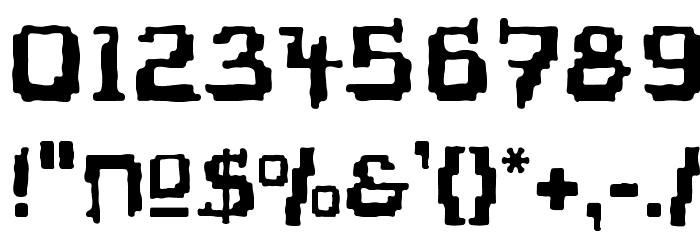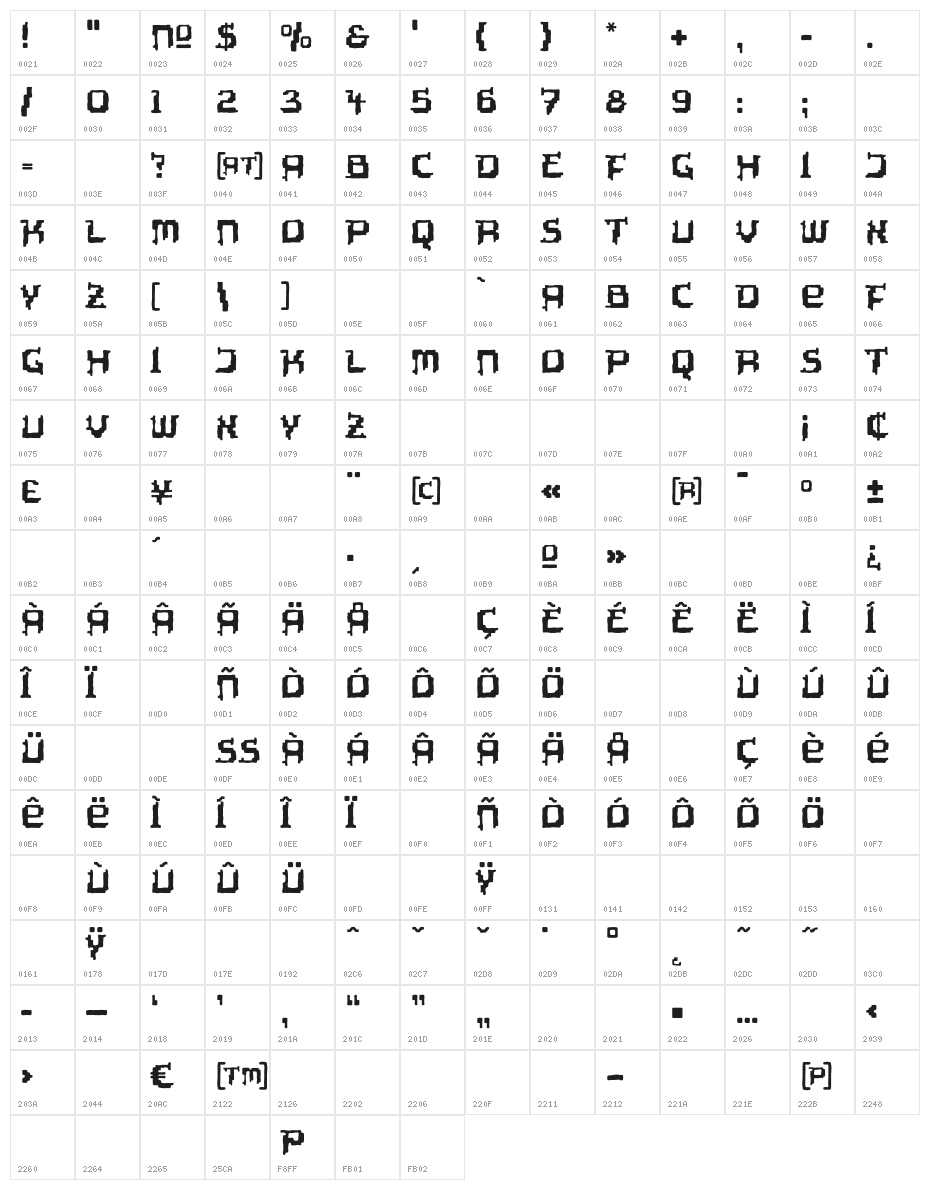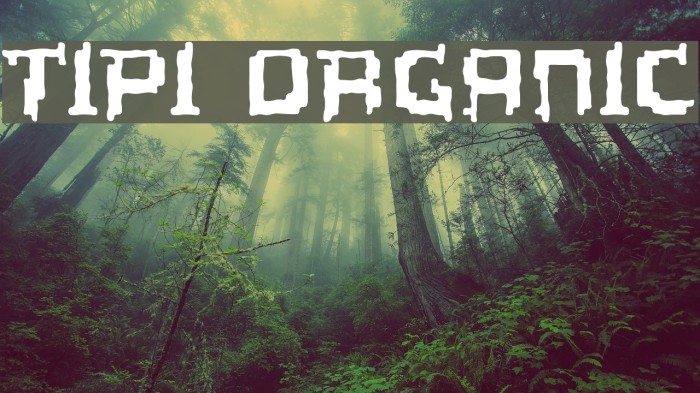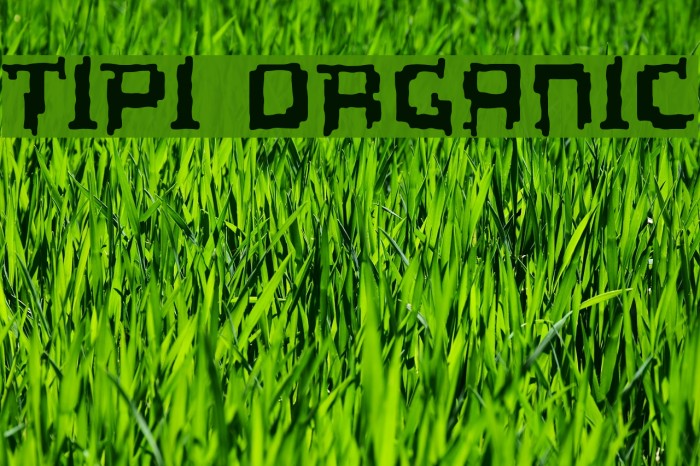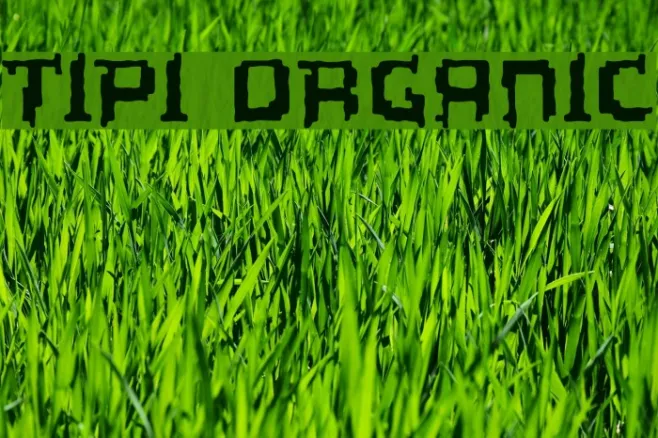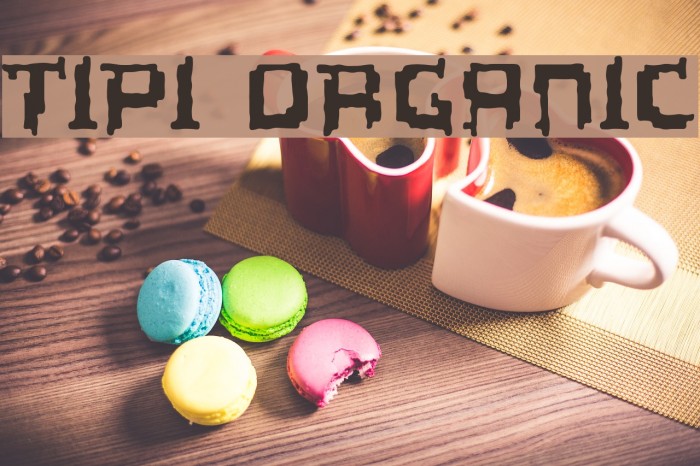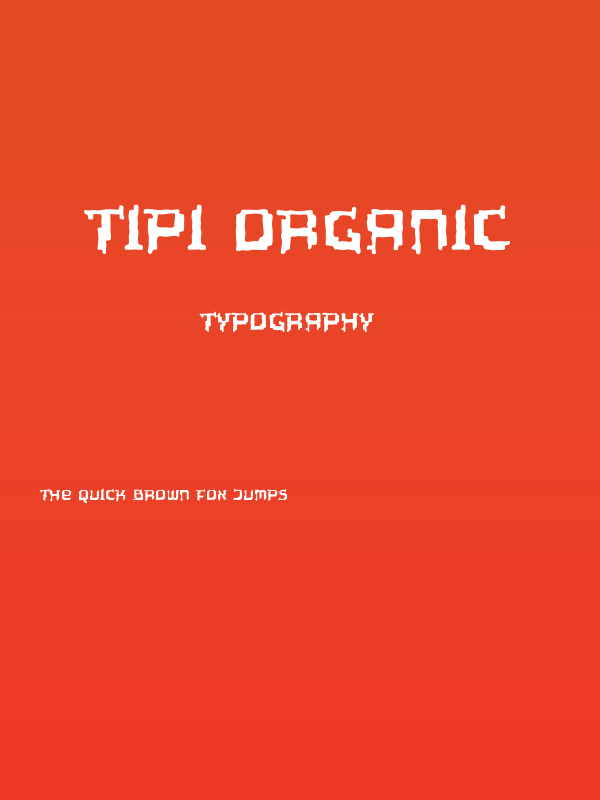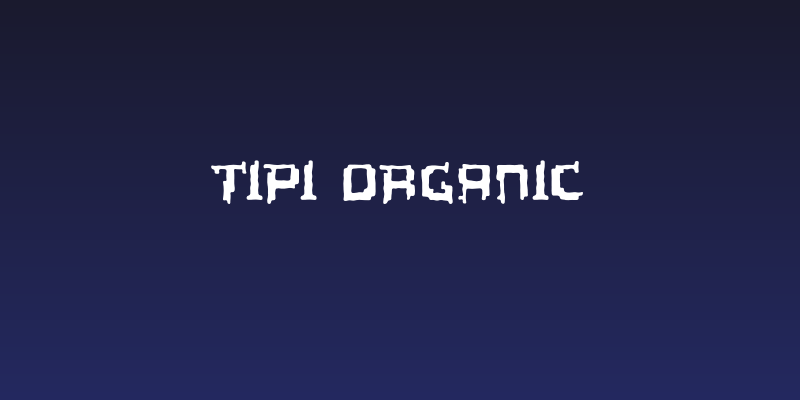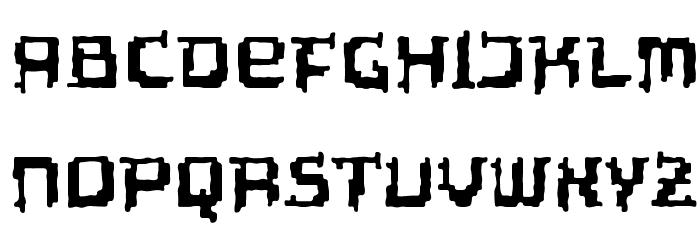
Tipi Organic Font
Tipi Organic Description
This font exhibits a rugged, organic style with uneven edges and a hand-drawn appearance. The characters are bold and have a distinct, irregular outline that gives them a unique, earthy feel. The uppercase and lowercase letters maintain a consistent height, while the numbers and special characters follow the same organic theme. The font's design is reminiscent of natural textures, making it ideal for projects that require a rustic or handcrafted aesthetic. Its bold presence ensures readability while adding a touch of personality and warmth.
| Overall Style | Organic, Rustic |
| Proposed Projects | Perfect for eco-friendly branding, outdoor adventure posters, artisanal product packaging, and rustic-themed event invitations. |